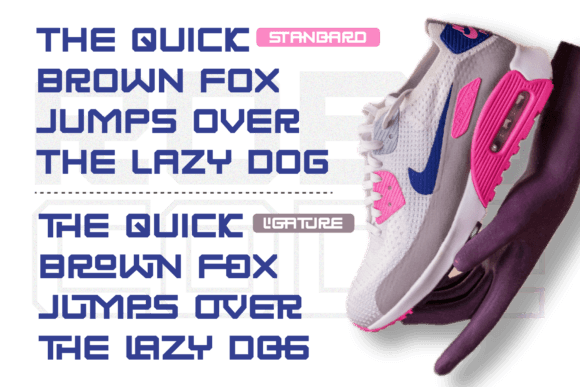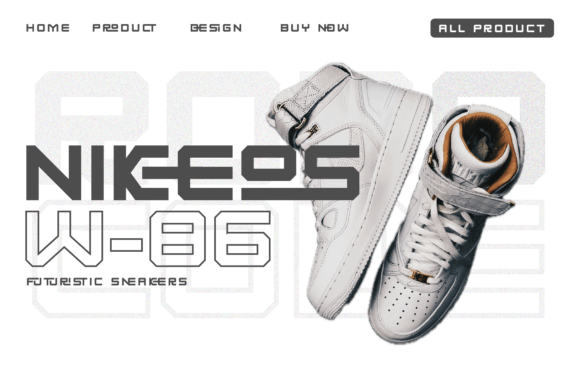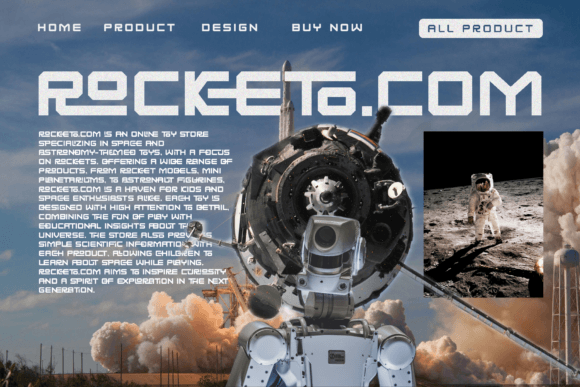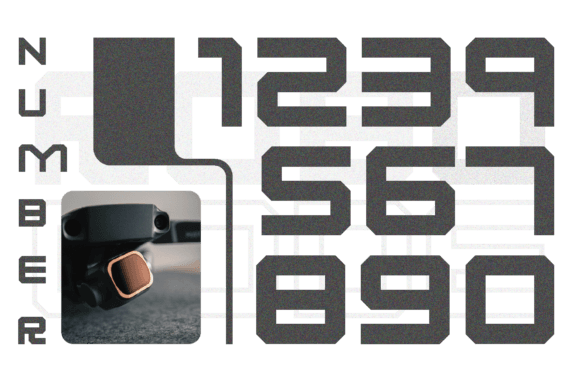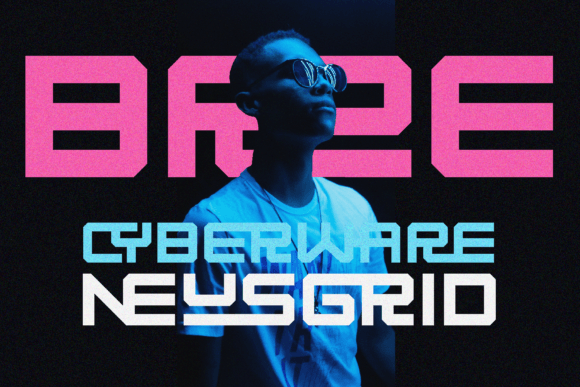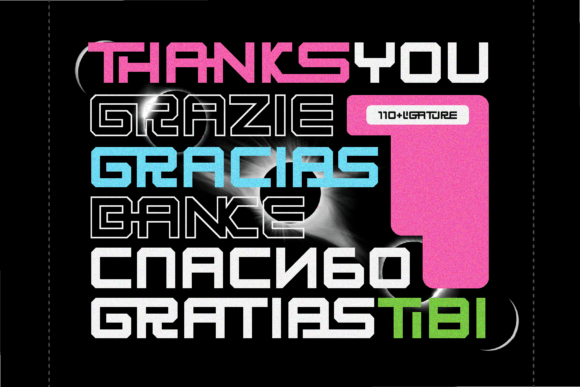
Introduction to Robocode Font
Robocode by Erifqizefont is a cutting-edge ligature font designed with a bold, symmetrical, and futuristic aesthetic, perfect for projects with a techno vibe.
Its sleek, geometric forms give it a modern, innovative look that embodies the essence of technology and the future With over 110 ligatures, Robocode offers a seamless and dynamic reading experience, while its multilingual and Cyrillic support ensures accessibility for a global audience.
Key Features of Robocode Font